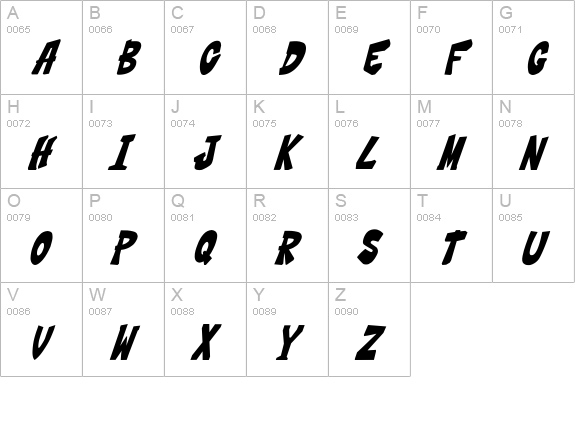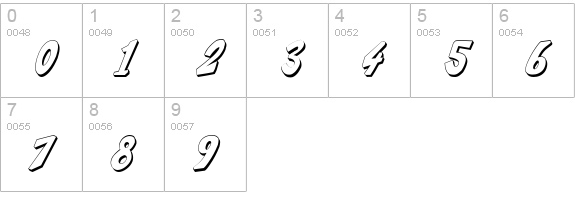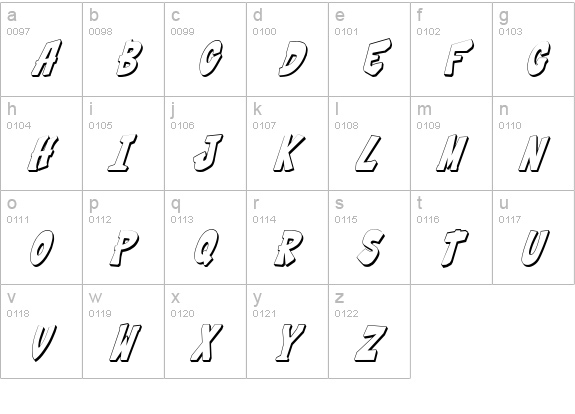
THWACK!!! Font Details
Introducing THWACK!!! font, a bold and dynamic typeface that will make your designs stand out from the crowd. This eye-catching font is perfect for adding a touch of excitement and energy to any project. With its strong and playful letterforms, THWACK!!! captures attention and creates a memorable visual impact. But what makes THWACK!!! font even more appealing is that it is freely available to download at FontsMarket.com. Yes, you heard it right - this incredible font can be yours without any cost! Whether you're a professional designer looking to add a unique touch to your latest project or a student working on a creative assignment, THWACK!!! font is the perfect choice for you. Featuring a wide range of characters and glyphs, THWACK!!! font offers endless possibilities for customization and creativity. Its bold and edgy style makes it ideal for headlines, logos, posters, album covers, and any other design element that needs to make a statement. With THWACK!!! font, your text will pop off the page and command attention like never before. Not only does THWACK!!! font offer stunning visual appeal, but it is also incredibly easy to use. The font is compatible with various design software, ensuring a smooth and hassle-free experience. Whether you're a seasoned designer or just starting out, you'll find that THWACK!!! font is a breeze to work with. So why wait? Head over to FontsMarket.com and download THWACK!!! font today. Unleash your creativity and let this remarkable font take your designs to new heights. With its boldness, energy, and the fact that it's completely free, THWACK!!! font is a must-have for any designer or creative enthusiast. Don't miss out on this opportunity to make a statement - grab THWACK!!! font now and let your designs THWACK!!! with style and impact.